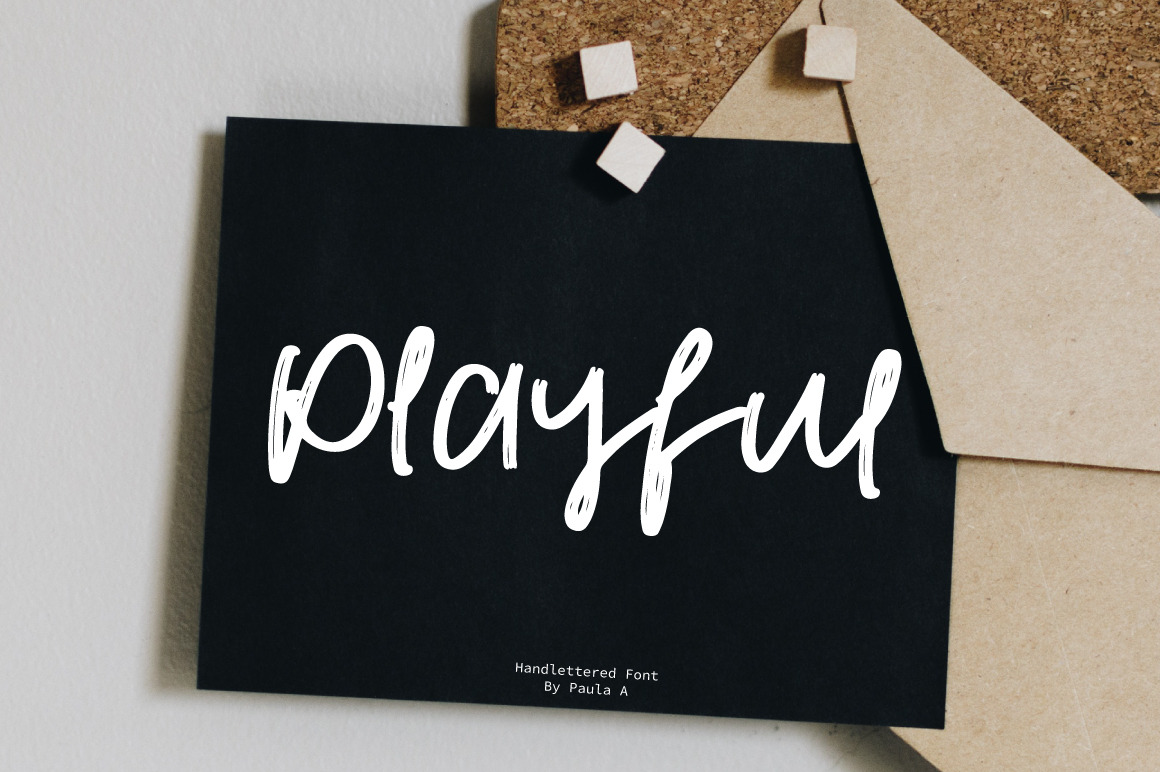
Playful | Handlettered Font
Playful is a classic script font.
Every single letter has been creative carefully and Perfectly for every project. This font is a little romantic script designed for making your set of invitations, quotes, blog posts, and more completely beautiful